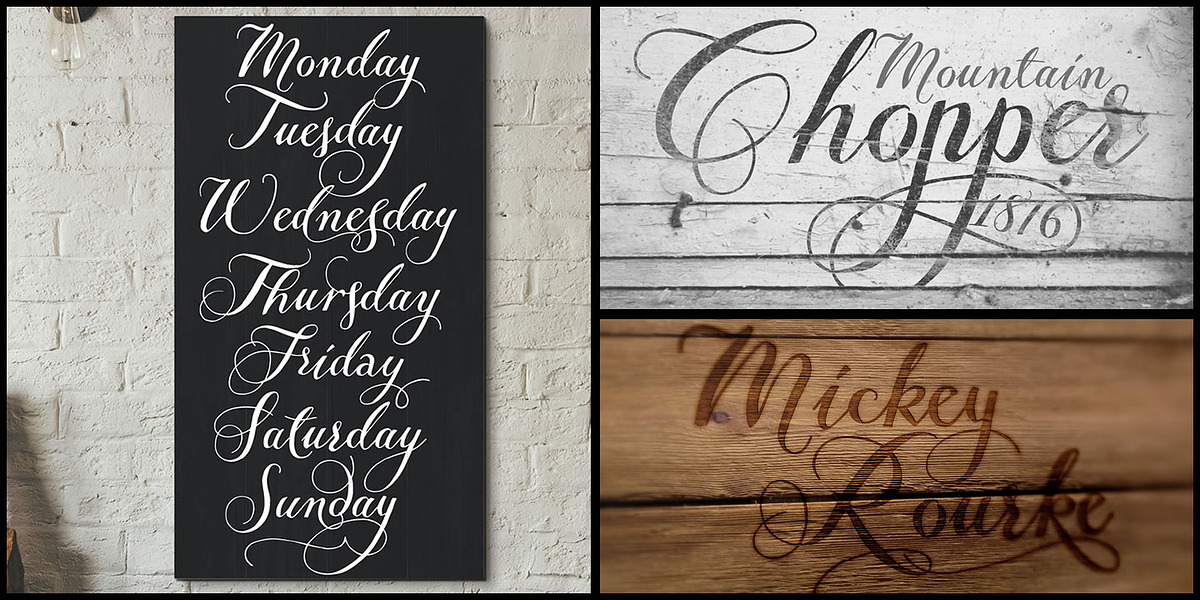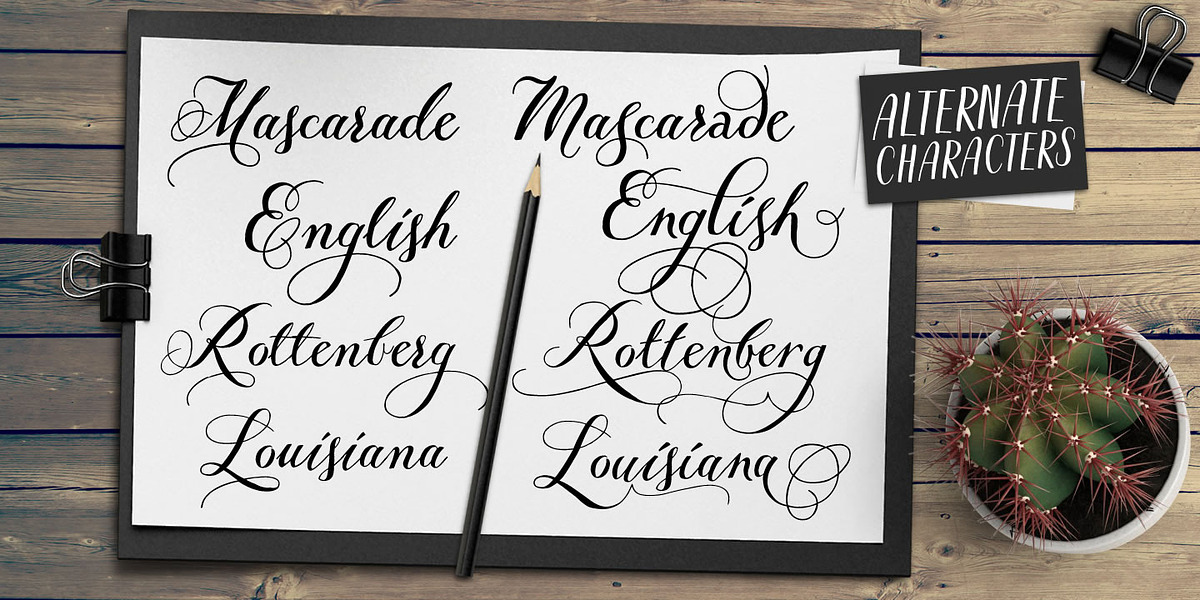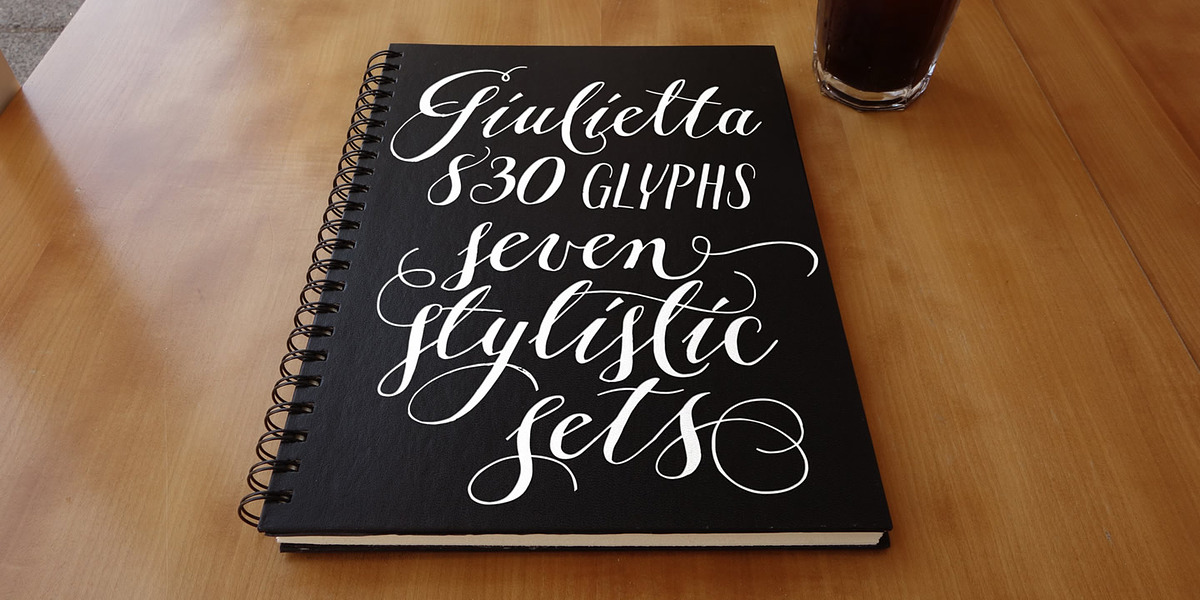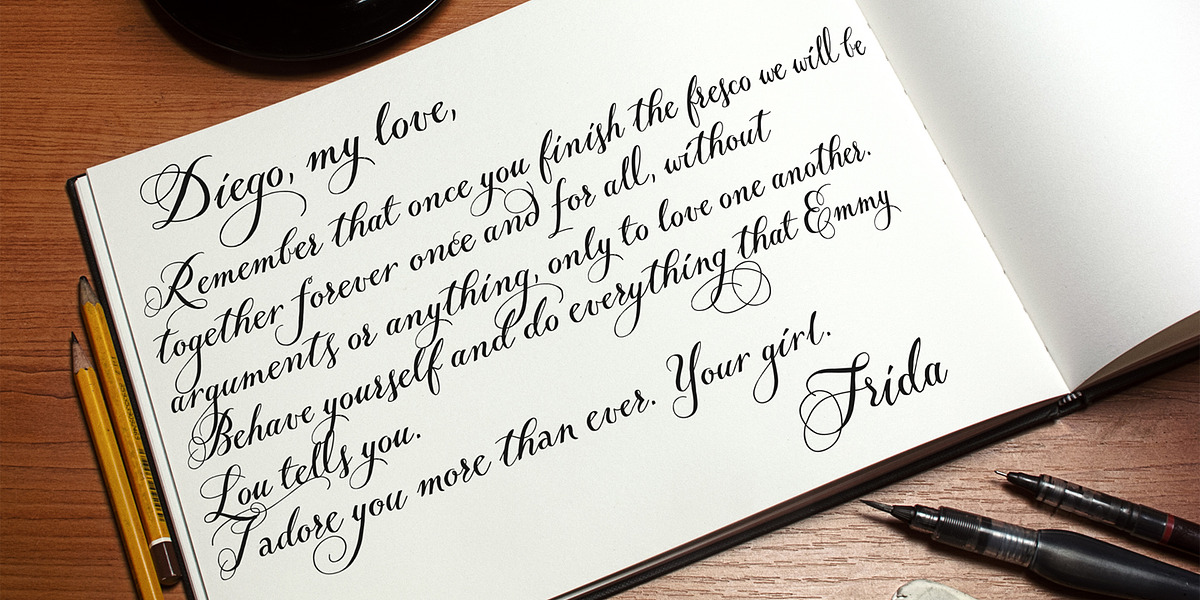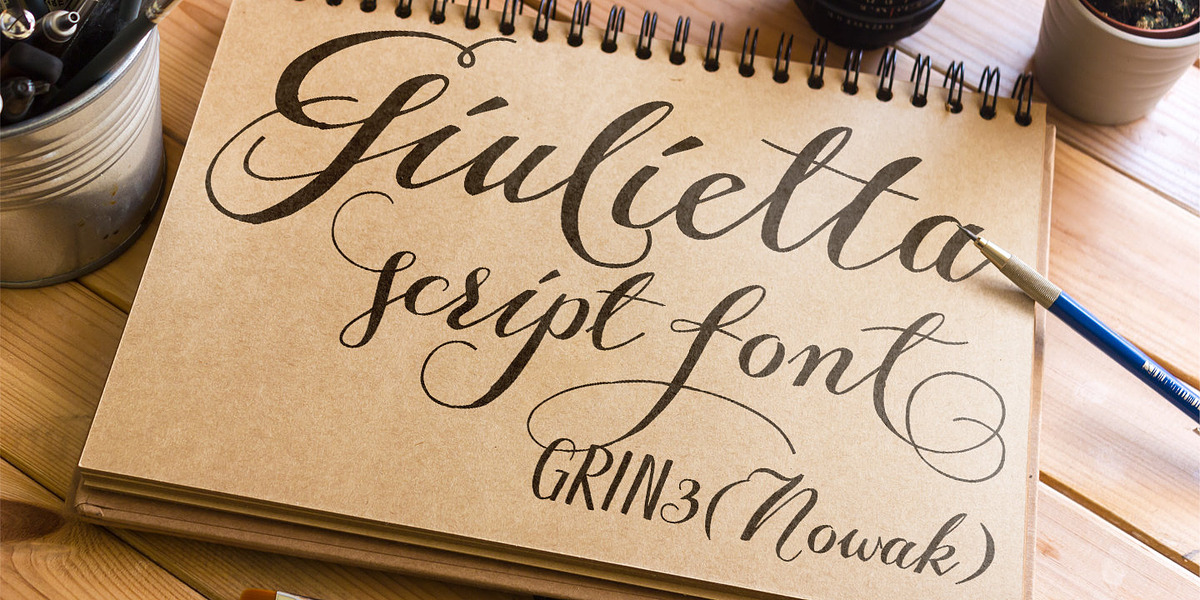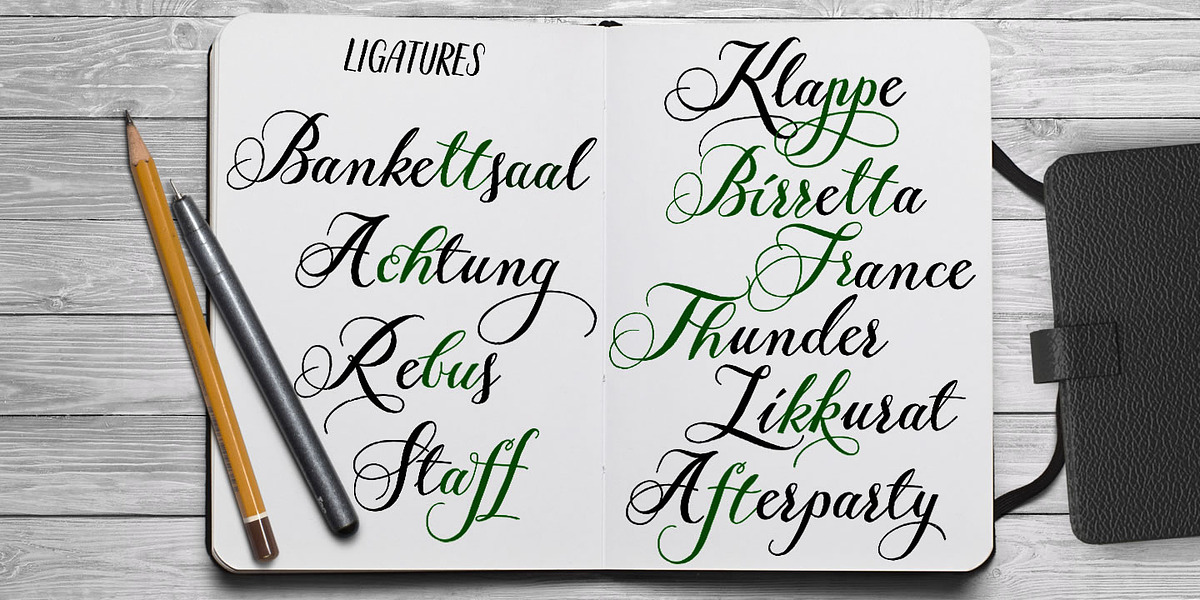
Giulietta
Giulietta is a formal script font designed for elegant applications. It features ligatures and contextual alternates to enhance readability and create a fluid writing style. Giulietta comes in various styles (Pro, A, B, C) with Pro offering the most extensive character set and alternate glyphs. It supports a wide range of languages including Western, Central and Eastern European, Baltic, and Turkish.